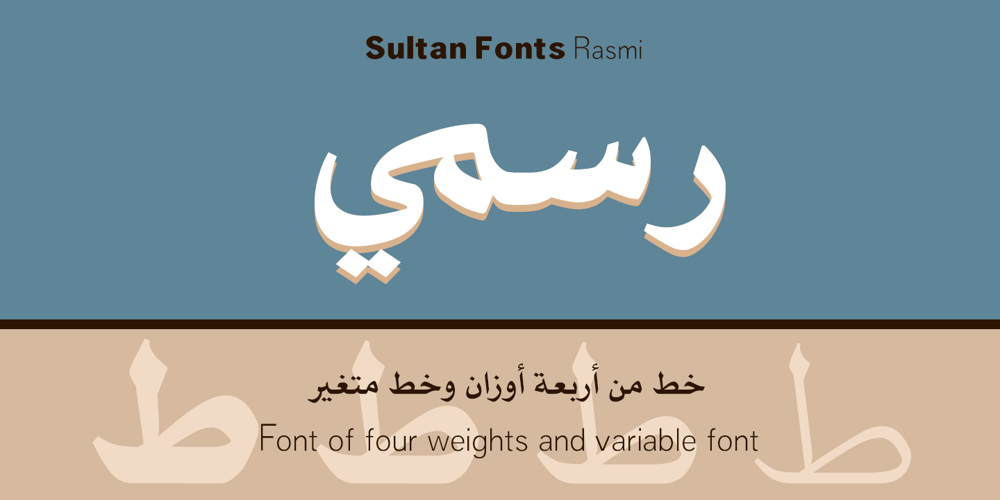
SF Rasmi
SF Rasmi font
SF Rasmi Font Family was designed by Sultan Maqtari and published by Sultan Fonts. SF Rasmi contains 4 styles and family package options. Rasmi font It is a font for print and the web. Especially for coordinating university and school books, scientific research, exams, government and corporate correspondence, and coordinating financial, judicial, and diplomatic documents.The Rasmi font family includes four weights: thick for headlines, bold for subheadings, medium for body text, and thin for footnotes and explanations.The font supports Arabic, Latin, Persian, Urdu, and Kurdish languages. The graphic designer can use Rasmi variable font to reach wider options in working with the text.